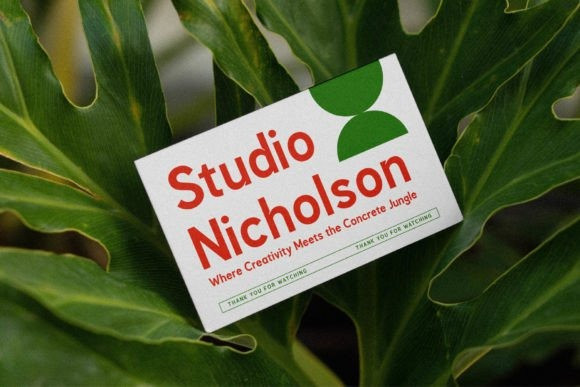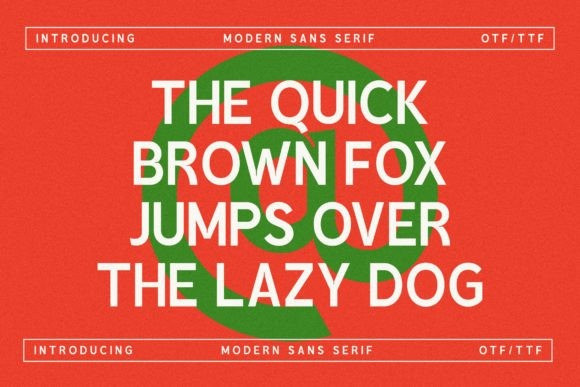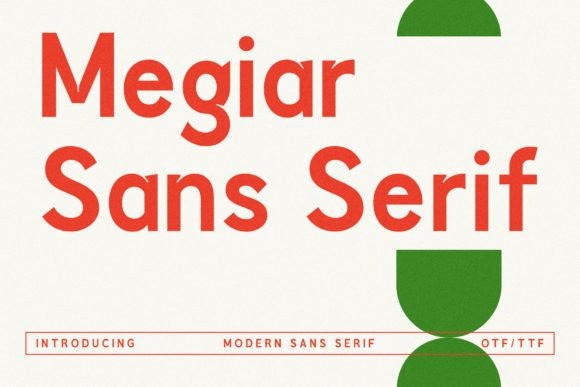
Megiar Font
Megiar Font is a classic and bold sans serif font, perfect for an elegant & luxurious logo, book or movie title design, fashion brand, magazine, clothes, lettering, quotes, and so much more.